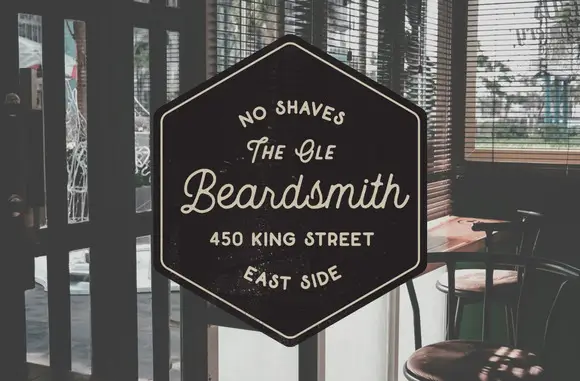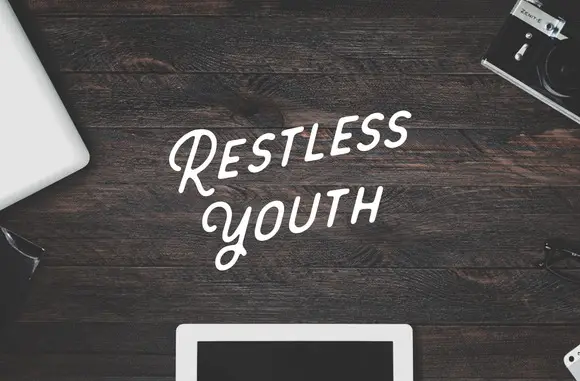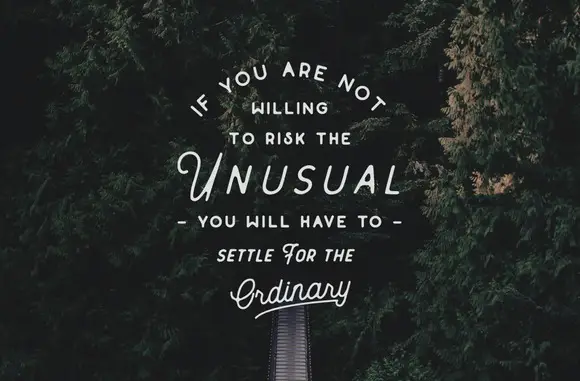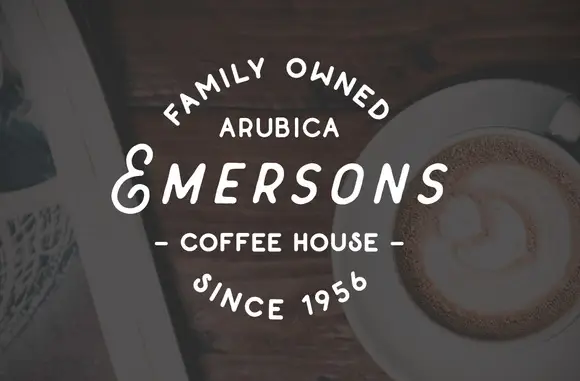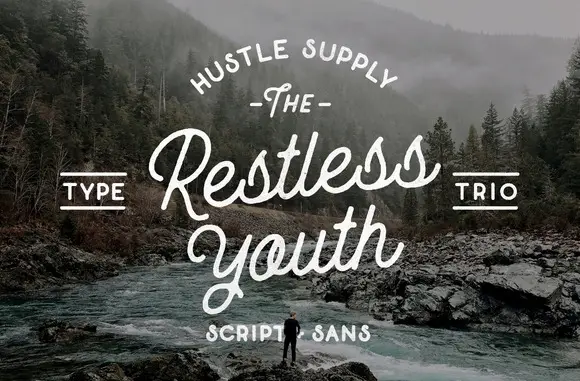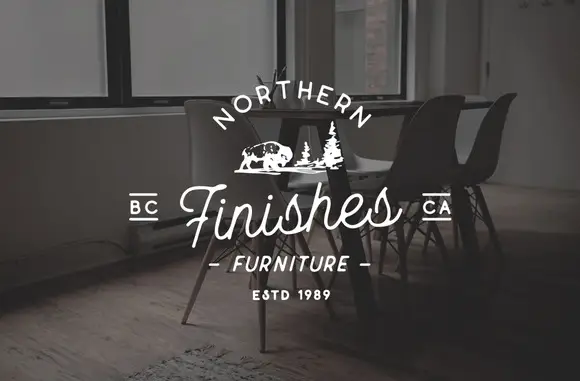
The Restless Youth – Font Bundle
The Restless Youth Font Bundle offers a unique collection of typefaces designed to bring a youthful and dynamic feel to your projects. This bundle includes a variety of font styles, each crafted with attention to detail, ensuring versatility for various applications.
• Multiple font styles including script, sans-serif, and display
• Various weights to choose from for added flexibility
• Perfect for both digital and print use
• Stylish and modern designs suitable for branding, logos, and promotional materials
• Ideal for creating eye-catching headlines, posters, and social media graphics
• Use different weights to create visual hierarchy in your designs